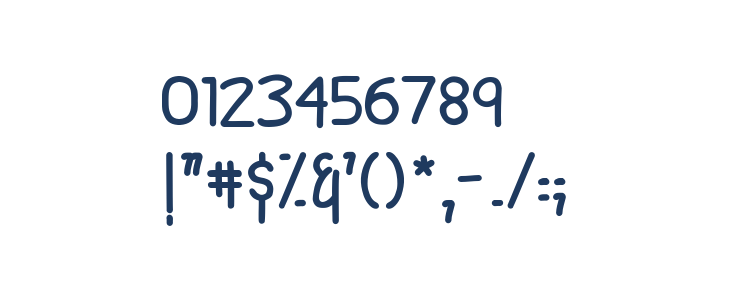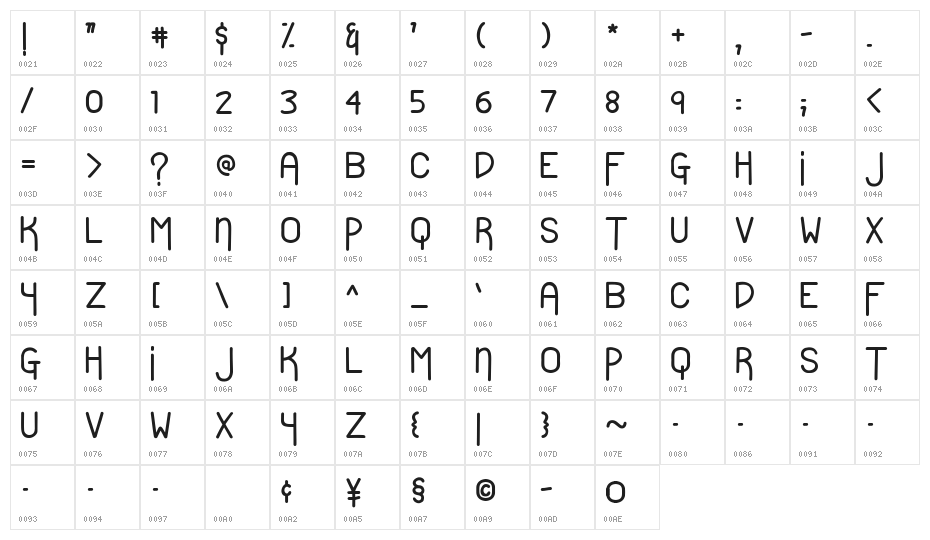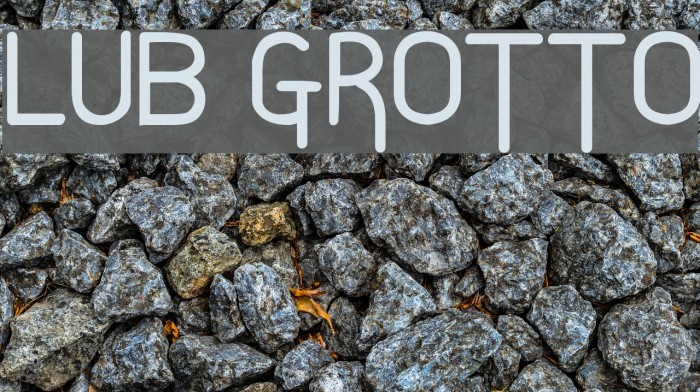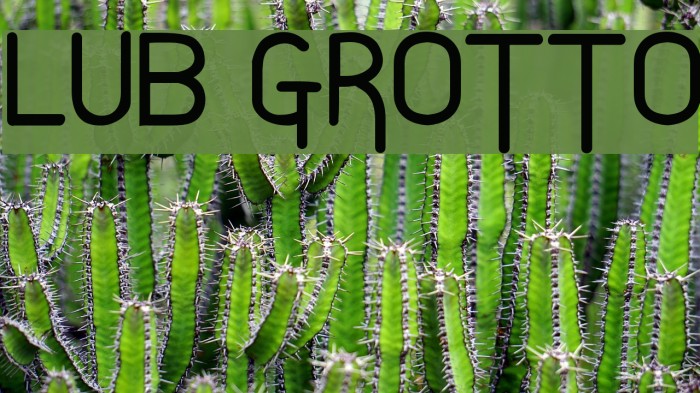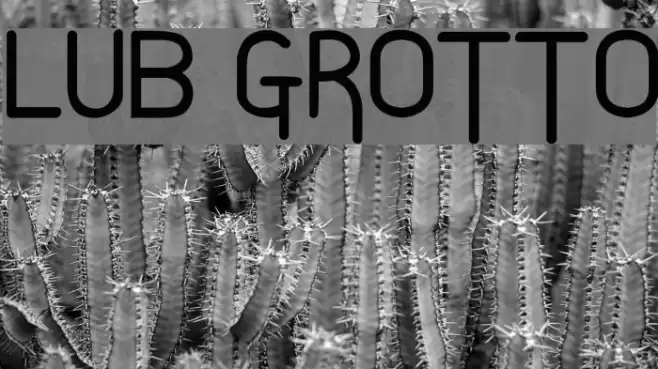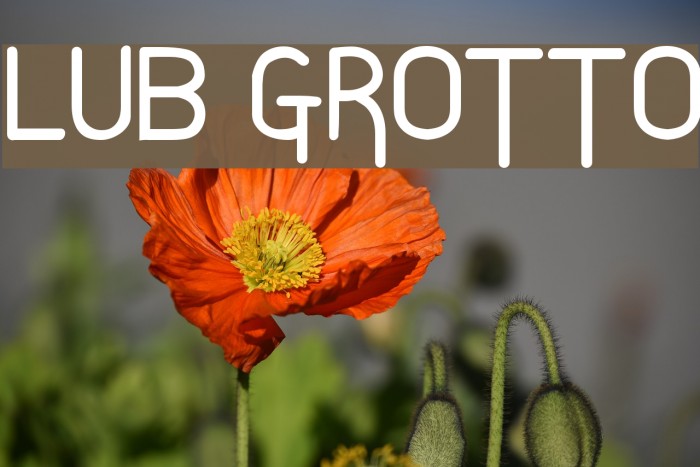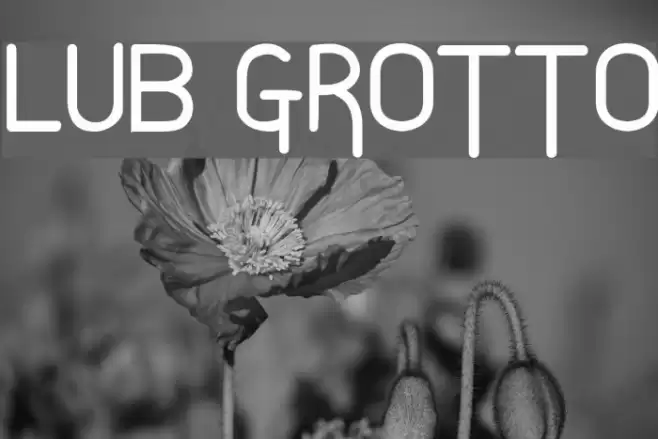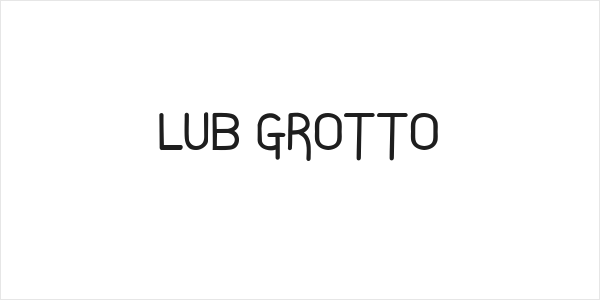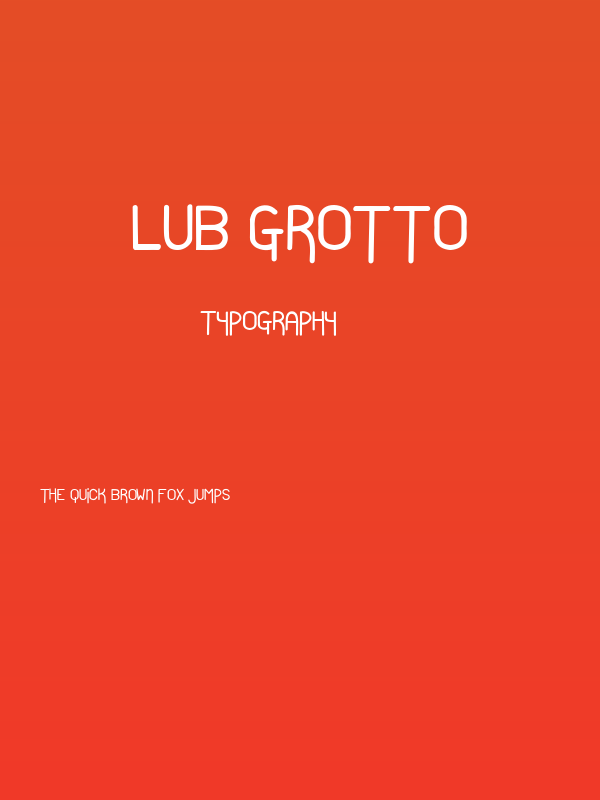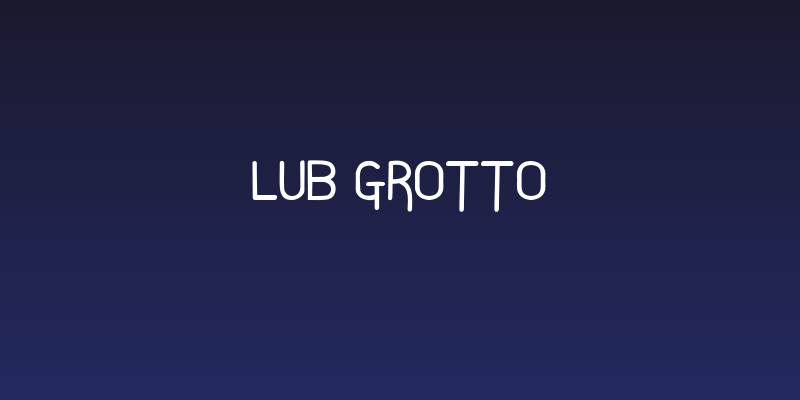
Lub Grotto Font
Lub Grotto Description
This font features a playful and rounded design, characterized by its smooth curves and uniform stroke width. The letters are evenly spaced, creating a harmonious and approachable appearance. The uppercase and lowercase letters maintain a consistent style, with rounded terminals and a slightly condensed form. Numbers and special characters follow the same design principles, ensuring a cohesive look across all elements. The font's simplicity and readability make it suitable for a variety of applications, from casual branding to children's books.
| Proposed Projects | Ideal for children's books, casual branding, playful posters, and friendly web design. |